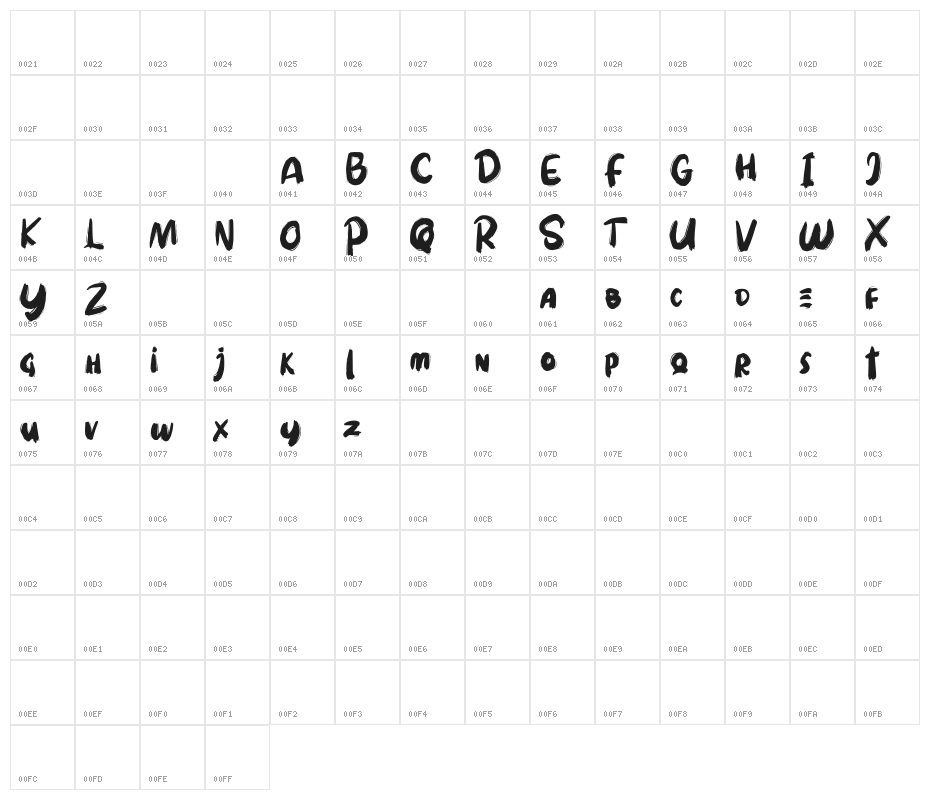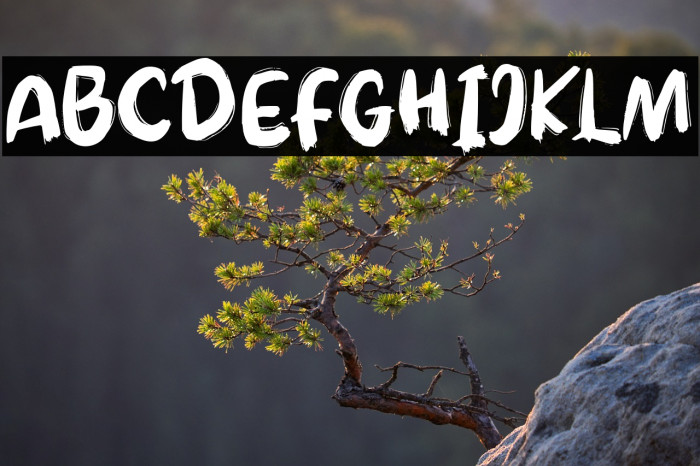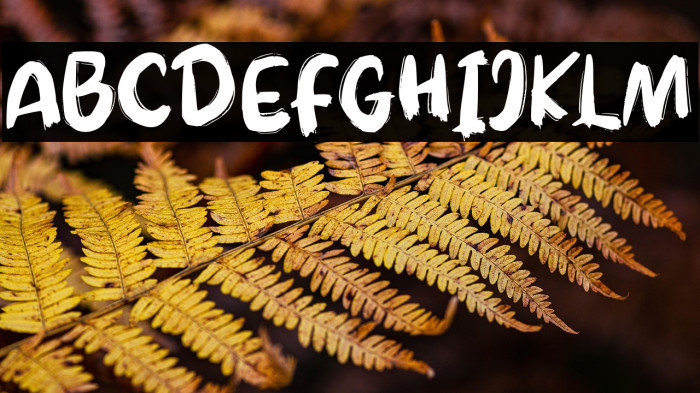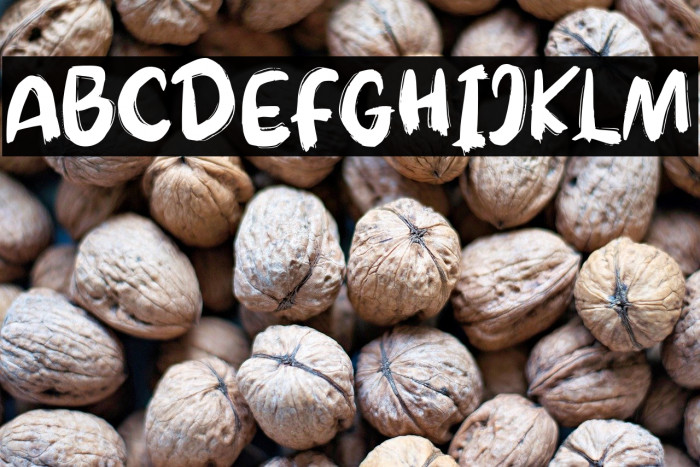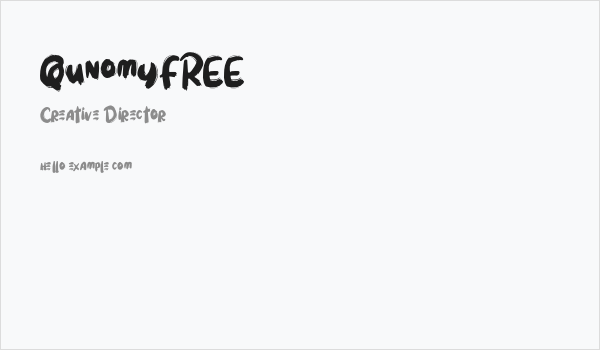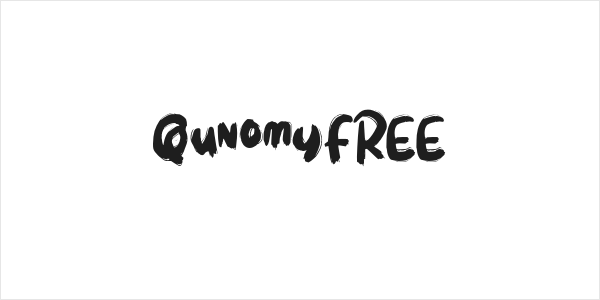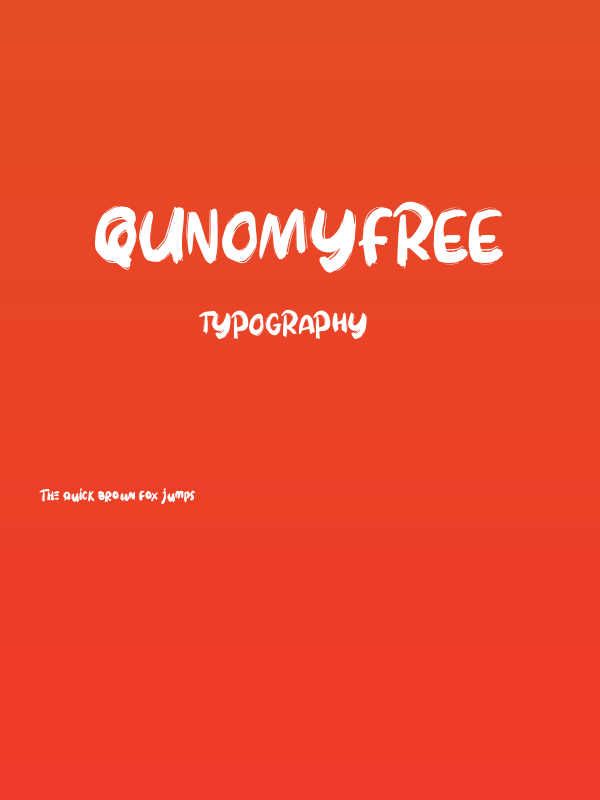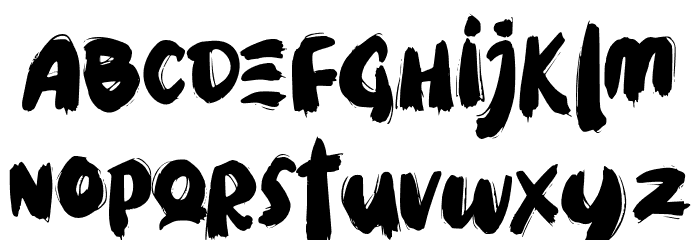
QunomyFREE Font
QunomyFREE Description
This font features a bold, expressive style with a brush-like texture, giving it a dynamic and energetic appearance. The characters are crafted with irregular edges and varying stroke widths, creating a sense of movement and spontaneity. The uppercase and lowercase letters maintain a consistent style, with some letters exhibiting unique, artistic flourishes. The numbers and special characters are designed to match the overall aesthetic, ensuring a cohesive look across all elements. This font is ideal for projects that require a strong visual impact and a creative, artistic touch.
| Proposed Projects | Perfect for posters, branding, album covers, and creative advertising. |